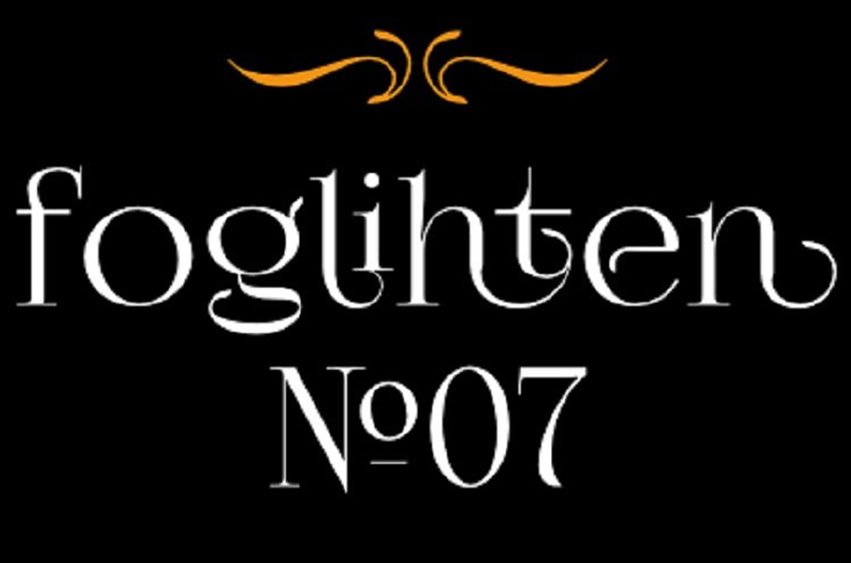
Fogli­hten No07 Font
Fogli­hten No07 Font was designed by glukfonts. Dec­o­ra­tive, serif font Fogli­hten No07 with stan­dard lig­a­tures, styl­is­tic sets, dec­o­ra­tive lig­a­tures, ter­mi­nal and ini­tial forms.
Addi­tional FoglihtenNo07calt with ini­tial and final forms as default con­tex­tual alter­nates and alter­nate “r”.